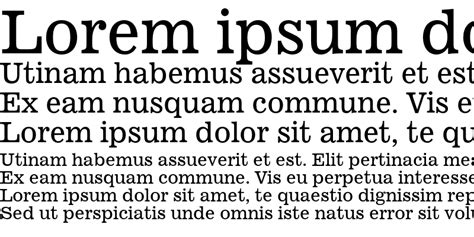
INEWS 701 Font: A Comprehensive Guide
iNEWS 701 Font: A Comprehensive Guide
Hey guys! Today, we’re diving deep into the world of the iNEWS 701 font . If you’ve ever worked with newsroom automation systems, chances are you’ve encountered this font, or at least its predecessors. It’s a pretty standard fixture, and understanding its nuances can actually make your workflow a bit smoother. So, let’s get into it!
What is the iNEWS 701 Font?
So, what exactly is the iNEWS 701 font ? Essentially, it’s a typeface designed specifically for use within the iNEWS newsroom computer system (NCS). You might be wondering, why a custom font? Well, newsrooms are fast-paced environments, and clarity is absolutely paramount. The iNEWS 701 font was developed with readability and efficiency in mind, ensuring that journalists, producers, and anchors can quickly scan and process information on their screens without strain. It’s built to be highly legible at various sizes and resolutions, which is crucial when you’re dealing with scripts, rundowns, and breaking news alerts flying across your monitor.
A Bit of History and Evolution
While the focus is on iNEWS 701, it’s worth noting that this font is part of a lineage. The iNEWS system itself has evolved over the years, and so have its associated typefaces. Earlier versions might have used different fonts, but iNEWS 701 represents a more refined iteration, optimized for modern display technologies and user interface design. Think of it as the font equivalent of a software update – it aims to be better, faster, and more user-friendly. This continuous development ensures that the tools news professionals rely on remain effective and adaptable to the ever-changing demands of broadcast journalism. It’s not just about making text look pretty; it’s about ensuring that critical information is conveyed accurately and instantly, which is the bedrock of news operations. The journey from earlier fonts to iNEWS 701 is a testament to the ongoing effort to perfect the visual communication within a high-pressure news environment. It’s subtle, but the impact on workflow efficiency and error reduction can be significant. For those who spend hours staring at screens, even minor improvements in legibility can make a huge difference in reducing eye strain and fatigue.
Key Features and Benefits
Now, let’s talk about why this font is so widely used. The iNEWS 701 font isn’t just any font; it has specific characteristics that make it ideal for its intended purpose. Readability is the big one, guys. In a newsroom, you’re often scanning lines of text at high speed, trying to catch key details. This font is designed with clear letterforms, good spacing (kerning and tracking), and distinct characters to minimize confusion. This means less chance of mistaking an ‘i’ for an ‘l’ or a ‘0’ for an ‘O’, which, believe it or not, can happen with poorly designed fonts, especially under pressure. Legibility at various sizes is another huge plus. Whether it’s a small alert box or a large anchor script, the font maintains its clarity. This is achieved through careful design of its weight, x-height, and serif (or lack thereof – often sans-serif fonts are preferred for digital interfaces due to their clean lines). The goal is to ensure that no matter how the text is displayed or at what size, it remains easy to read without requiring the user to squint or strain their eyes. This consistency across different contexts is a hallmark of professional UI design.
Optimized for Digital Displays
Furthermore, the iNEWS 701 font is optimized for digital displays. This means it renders well on computer monitors, tablets, and even some mobile devices, which are increasingly used for monitoring news feeds and making quick edits. Unlike fonts designed primarily for print, which might have delicate serifs that can get lost at low resolutions, iNEWS 701 is typically designed with clear, robust strokes that hold up well on pixels. This optimization is critical because the primary way news professionals interact with the iNEWS system is through digital screens. The font’s design considers factors like anti-aliasing and pixel density to ensure a crisp and sharp appearance, preventing the jagged edges or blurry text that can occur with fonts not suited for digital environments. This attention to detail directly contributes to reduced eye fatigue during long work sessions and minimizes the potential for misreading crucial information, which is paramount in a time-sensitive industry like broadcast news. Its effectiveness is a direct result of understanding the technical limitations and opportunities presented by digital display technology.
Workflow Efficiency
Beyond just looking good and being readable, the iNEWS 701 font contributes directly to workflow efficiency . When information is clear and easy to process, decisions can be made faster, and errors are reduced. This translates to smoother newscasts, more accurate reporting, and less stress for the people working behind the scenes. Imagine trying to decipher a rapidly changing script with a cluttered, hard-to-read font – it would be a nightmare! The iNEWS 701 font aims to eliminate that friction, allowing users to focus on the content rather than struggling with the presentation. This is particularly important in live broadcast situations where every second counts. A font that allows for quick comprehension means that cues can be given faster, graphics can be deployed more accurately, and the overall pacing of the program can be maintained without interruption. It’s a silent but powerful tool in the arsenal of any news production team, streamlining communication and enhancing productivity in a sector where precision and speed are non-negotiable.
Where You’ll Find the iNEWS 701 Font
As you might expect, the primary place you’ll encounter the iNEWS 701 font is within the iNEWS newsroom computer system . This system is the central nervous system for many broadcast news operations globally. It’s where journalists write stories, producers build rundowns, and anchors read their scripts. The font is integrated directly into the iNEWS interface, ensuring that all text displayed within the system—from story headlines to full scripts—uses this familiar and legible typeface. Think of it as the system’s default language; it’s woven into the fabric of how news is organized and presented digitally within that specific environment. It’s not just for story text either; you’ll see it in rundown lists, cueing information, and any other textual element managed by the iNEWS software. This consistency throughout the system is key to its effectiveness, providing a predictable and comfortable reading experience for users who are deeply immersed in the software for hours on end.
Beyond the iNEWS System?
So, the big question is, can you use the iNEWS 701 font outside of the iNEWS system? Generally, the answer is no , not easily or officially. The iNEWS 701 font is typically proprietary to the iNEWS software. It’s not a font that you can just download from a typical font website and install on your computer for general use in Word, Photoshop, or other design applications. It’s bundled with the iNEWS software as part of its user interface design. While it’s possible that in some very specific, unofficial, or perhaps even legally questionable ways, someone might extract or replicate a similar-looking font, it’s not something that is made available for public consumption or commercial use. This is common for software-specific UI elements; they are integral to the application’s experience and not intended for broader distribution. If you’re looking for a font that looks similar for your own projects, you might need to explore commercially available sans-serif fonts that share characteristics like clarity, good spacing, and a modern feel. But for direct use of the actual iNEWS 701 font, you’re generally confined to the iNEWS environment itself. This exclusivity ensures that the intended user experience within the iNEWS system is maintained, preventing potential visual inconsistencies that could arise if the font were used in vastly different contexts with varying rendering capabilities.
Why Font Choice Matters in Newsrooms
This might seem like a minor detail to some, but the choice of typeface, like the iNEWS 701 font , has a surprisingly significant impact in a professional setting, especially a newsroom. Clarity and speed are the ultimate goals. In broadcast journalism, information needs to be consumed and acted upon instantly . A font that is difficult to read, even slightly, can lead to delays, errors, and increased stress. Think about it: an anchor needs to read a script flawlessly, a producer needs to make split-second decisions based on incoming information, and a technical director needs to pull up the right graphic at the right time. All of these tasks rely heavily on clear visual communication. A well-chosen font minimizes the cognitive load on the user, freeing up mental bandwidth to focus on the actual journalistic task at hand. It’s about reducing friction in the workflow, making the complex process of news production as smooth as possible. The font is a tool, and like any tool, its effectiveness is measured by how well it helps the user accomplish their job.
Reducing Errors and Improving Accuracy
One of the most critical benefits of using a font like iNEWS 701 is its role in reducing errors and improving accuracy . In news, accuracy is non-negotiable. A typo in a name, a wrong date, or a misquoted figure can have serious repercussions. Fonts that are highly legible, with distinct characters and clear differentiation between similar-looking letters (like ‘B’ and ‘8’, or ‘I’ and ‘l’), help prevent these kinds of mistakes. When journalists and editors can quickly and confidently read the text on their screens, the likelihood of overlooking a critical error decreases significantly. This attention to detail in the font design directly supports the core mission of news organizations: to inform the public accurately and reliably. The font becomes an unsung hero in the fight against misinformation and factual errors, providing a stable visual foundation for the verification and dissemination of news content. It’s a subtle but vital component in maintaining the integrity of the journalistic process.
Conclusion
So there you have it, guys! The iNEWS 701 font might seem like a small detail in the grand scheme of broadcast news, but it plays a crucial role. It’s all about clarity, efficiency, and accuracy . Designed specifically for the iNEWS system, it ensures that news professionals can process information quickly and reliably, minimizing errors and reducing eye strain. While you probably won’t be downloading it for your personal projects, understanding its purpose highlights how even the smallest design choices can have a significant impact in high-stakes environments. Keep an eye out for it next time you see a news control room in action – it’s the unsung hero of the newsroom screen!